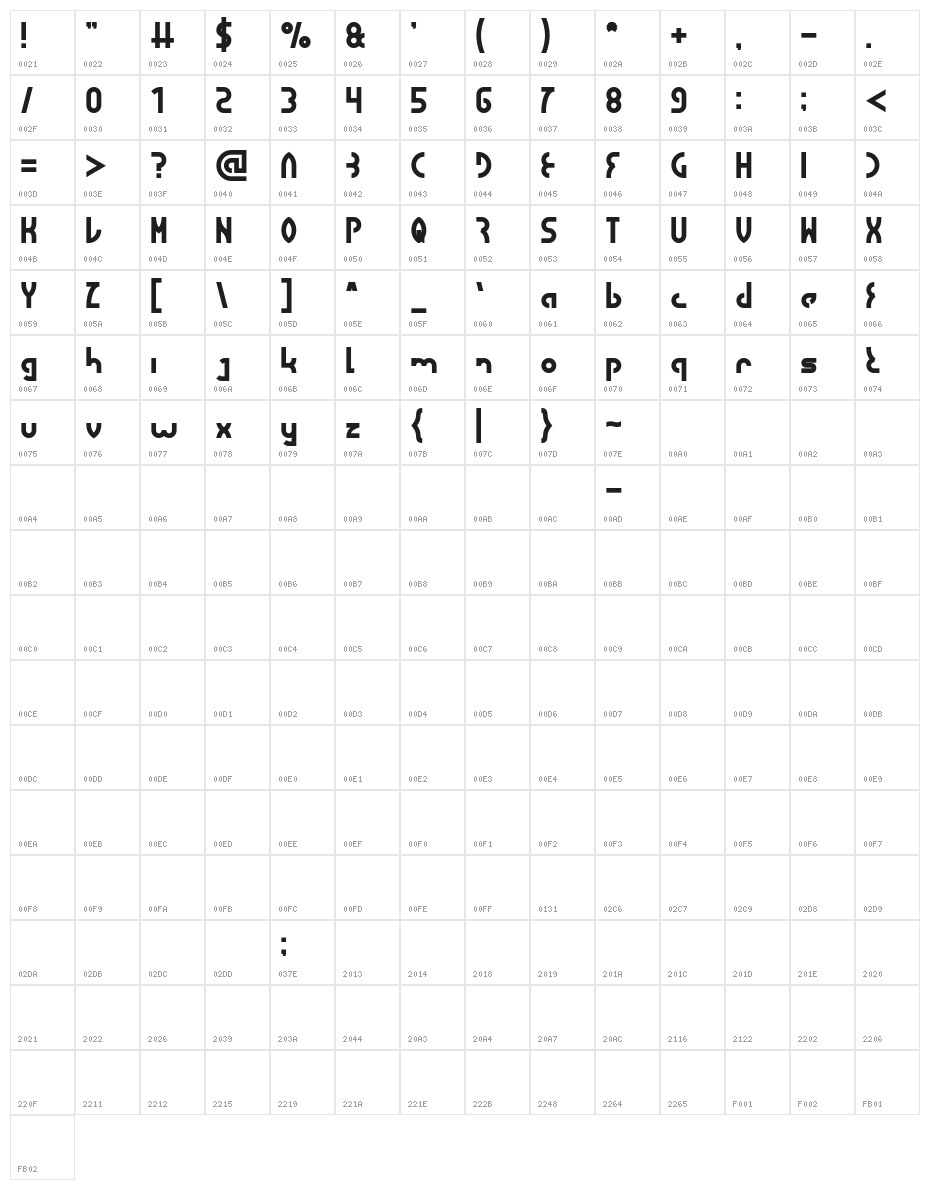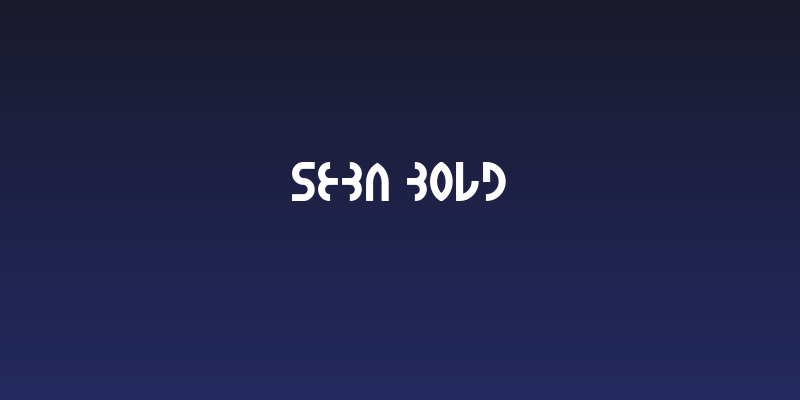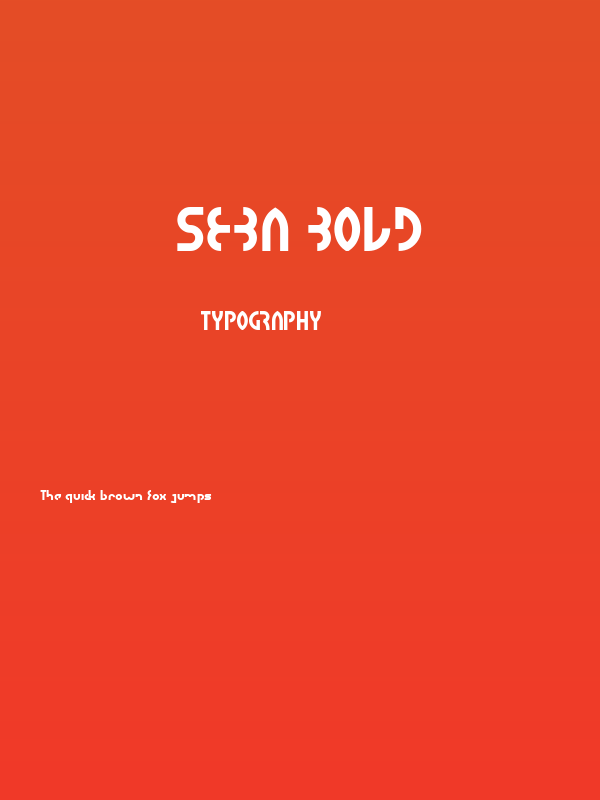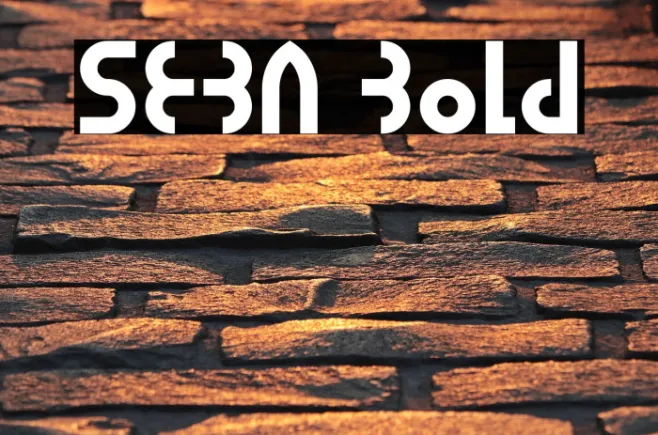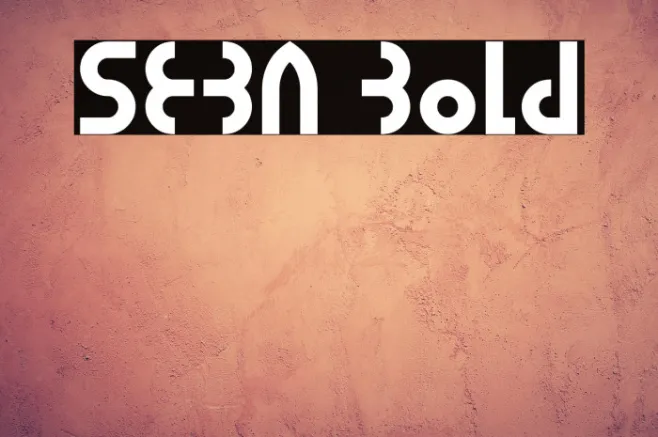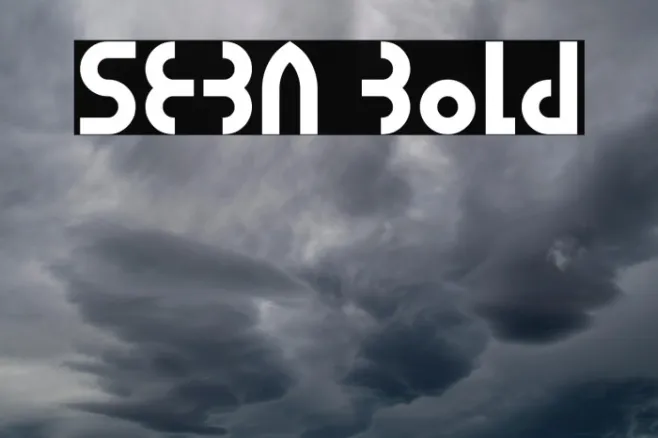
SEBA Bold Font
SEBA Bold Description
This font features a bold and geometric design with strong, angular lines and a modern aesthetic. The characters are constructed with a consistent stroke width, creating a uniform appearance. The uppercase letters are particularly striking, with unique shapes that give the font a futuristic feel. The lowercase letters maintain the geometric theme, offering a cohesive look across the alphabet. Numbers and special characters are designed to match the bold style, ensuring versatility in various applications. The overall appearance is both eye-catching and functional, making it suitable for a range of design projects.
SEBA-BOLD UPPERCASE
SEBA-BOLD LOWERCASE
SEBA-BOLD OTHER CHARS